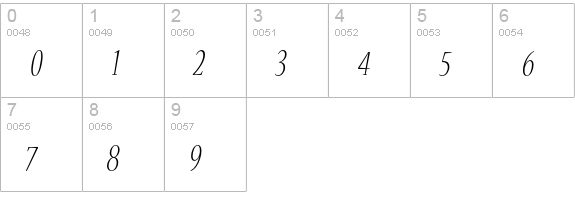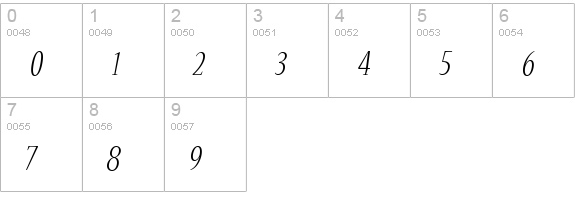
Nueva Std Light Condensed Italic Font Details
Nueva Std Light Condensed Italic is a refined, elegant, condensed-width, italic variant in the Nueva typeface family \xE2\x80\x94 well suited to elegant body text, refined sub-headings, and luxury branding.
The Nueva Std Light Condensed Italic font is a sleek and modern typeface that exudes elegance and sophistication. Its slender and italicized design adds a touch of refinement to any project, making it perfect for use in fashion magazines, luxury branding, and editorial layouts. This font is not only visually stunning but also incredibly versatile, suitable for a wide range of design applications. Whether you're looking to create a stylish logo, eye-catching headlines, or elegant invitations, the Nueva Std Light Condensed Italic font is sure to impress. Best of all, this font is available for free download at FontsMarket.com. So go ahead and elevate your designs with this beautiful typeface today!